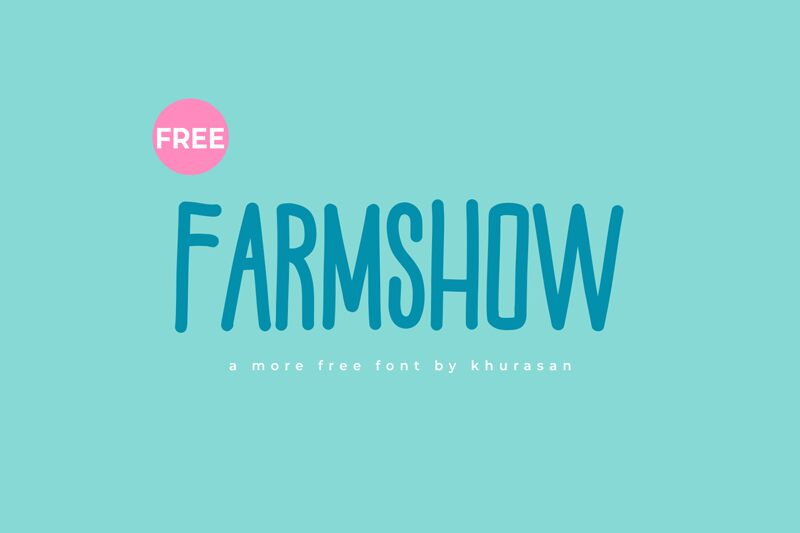
Farmshow
Farmshow, crafted by the imaginative Khurasan, embodies a playful spirit in a semi-light, extra-condensed display typeface. With its cartoon style charm, this font dances across the page drawing eyes to its unique and whimsical character. Perfect for an array of creative endeavors, Farmshow shines when employed in bold posters, dynamic logos, vibrant magazines, captivating book covers, and eye-catching banners.
Its modern twist on classic cartoon aesthetics ensures your projects will capture attention and exude fun. Whether you're aiming to inject personality into your designs or make a statement that can't be ignored, Farmshow is your go-to font. Dive into its fanciful world to elevate your creative ideas with a touch of lighthearted brilliance that only Farmshow can provide.